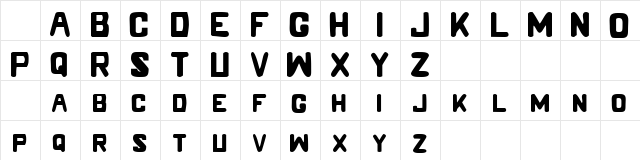
LM Caps Regular
Design Context for LM Caps Typeface
LM Caps is a composed and adaptable typeface that performs quietly and consistently across a wide range of design contexts.
Pro Tip: Use LM Caps in both headline and body roles to test its range before committing to a single application.